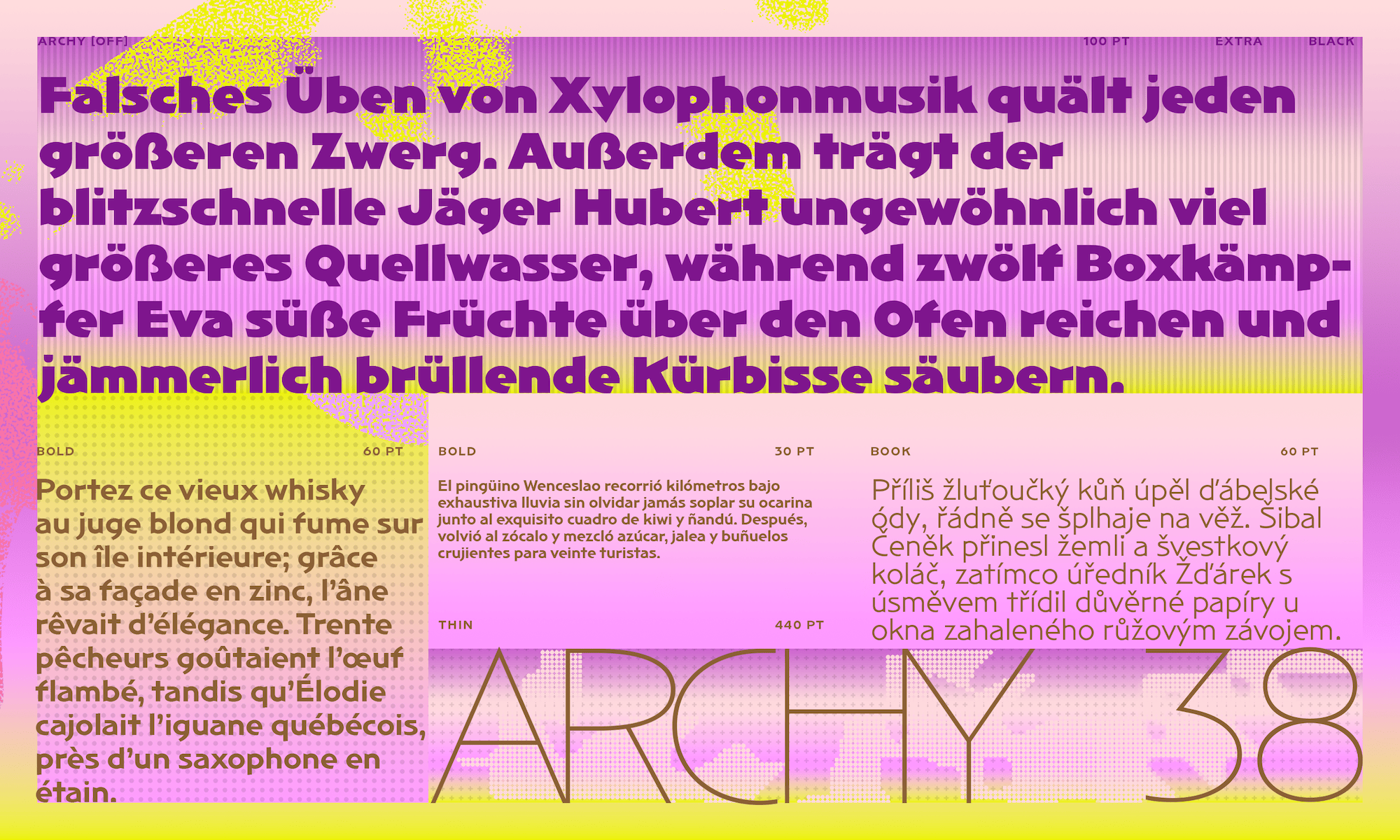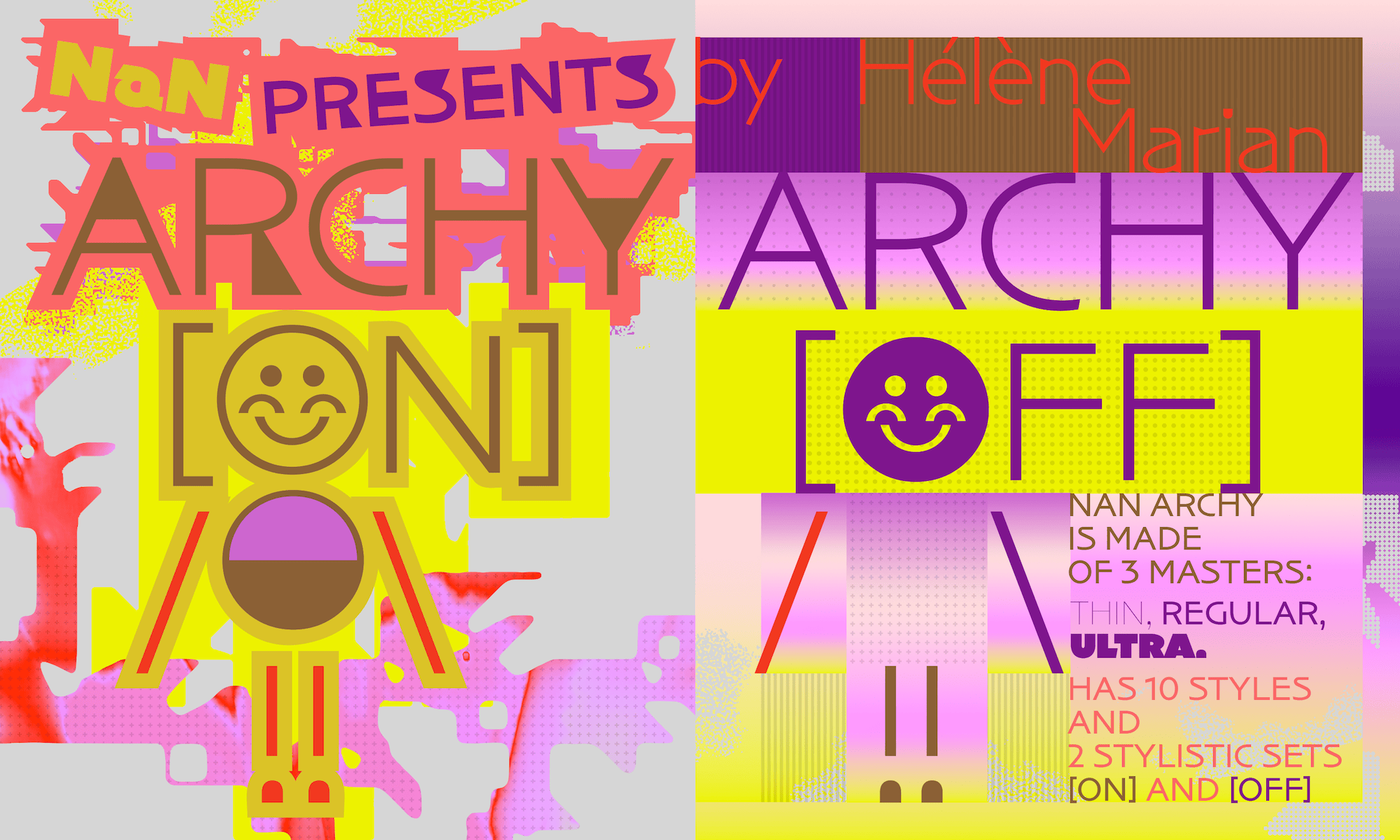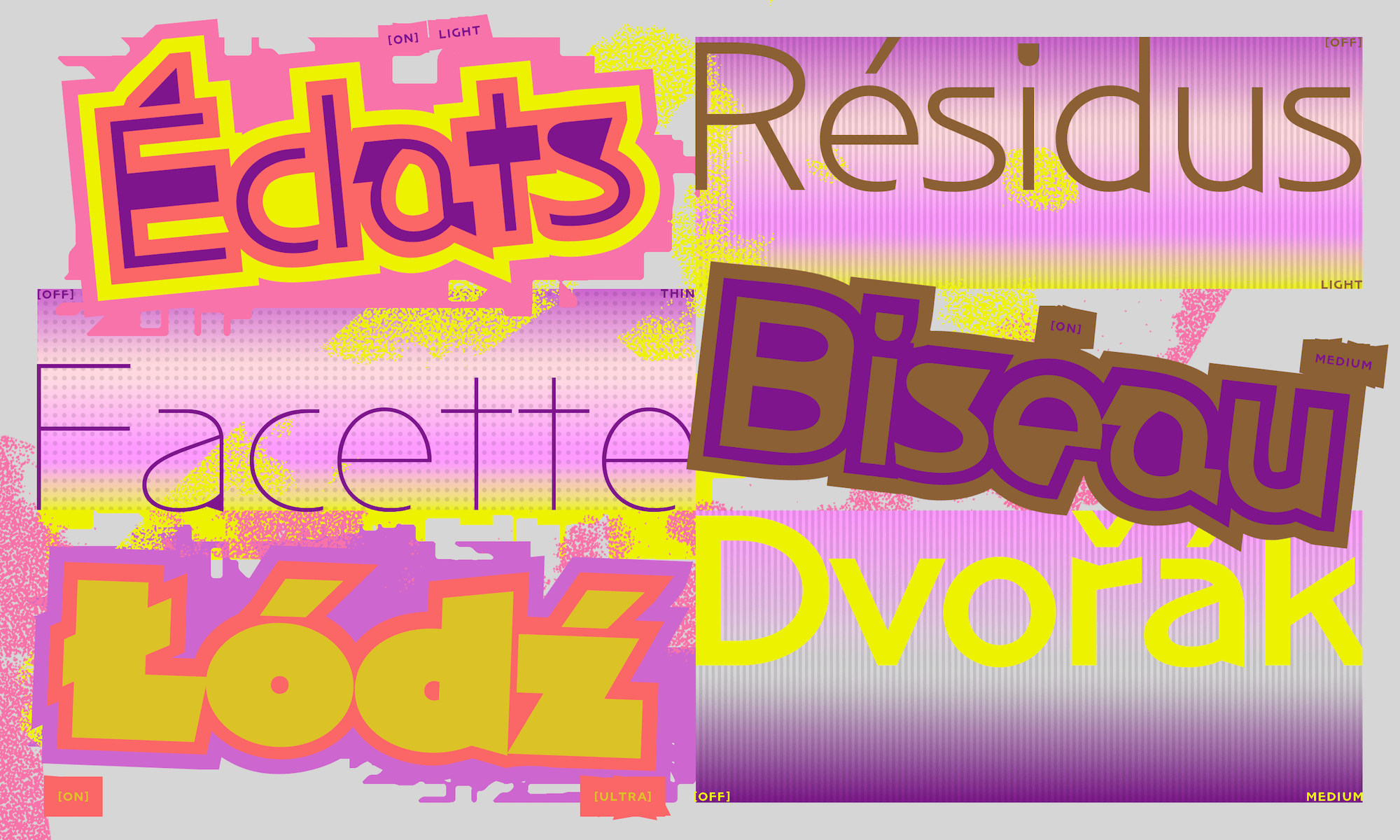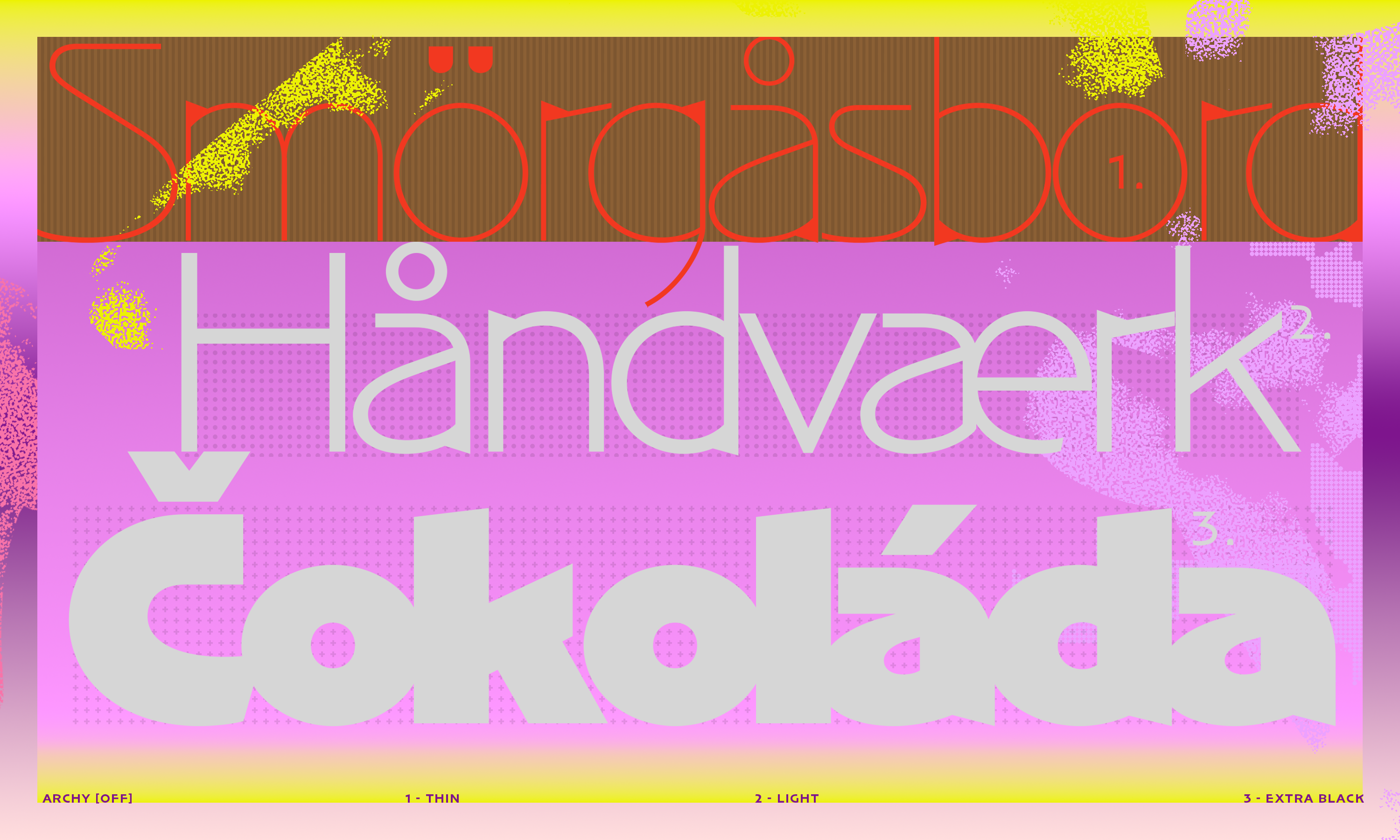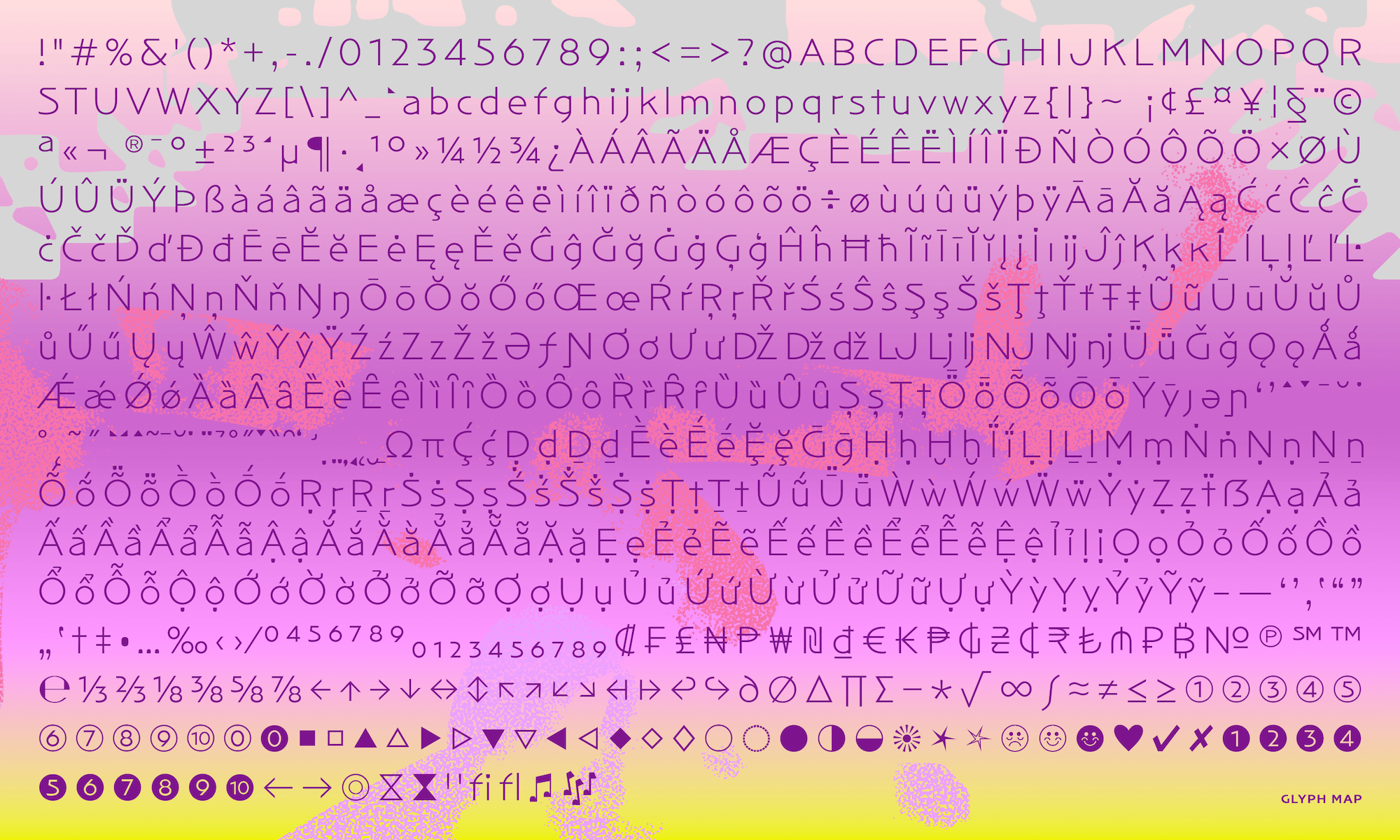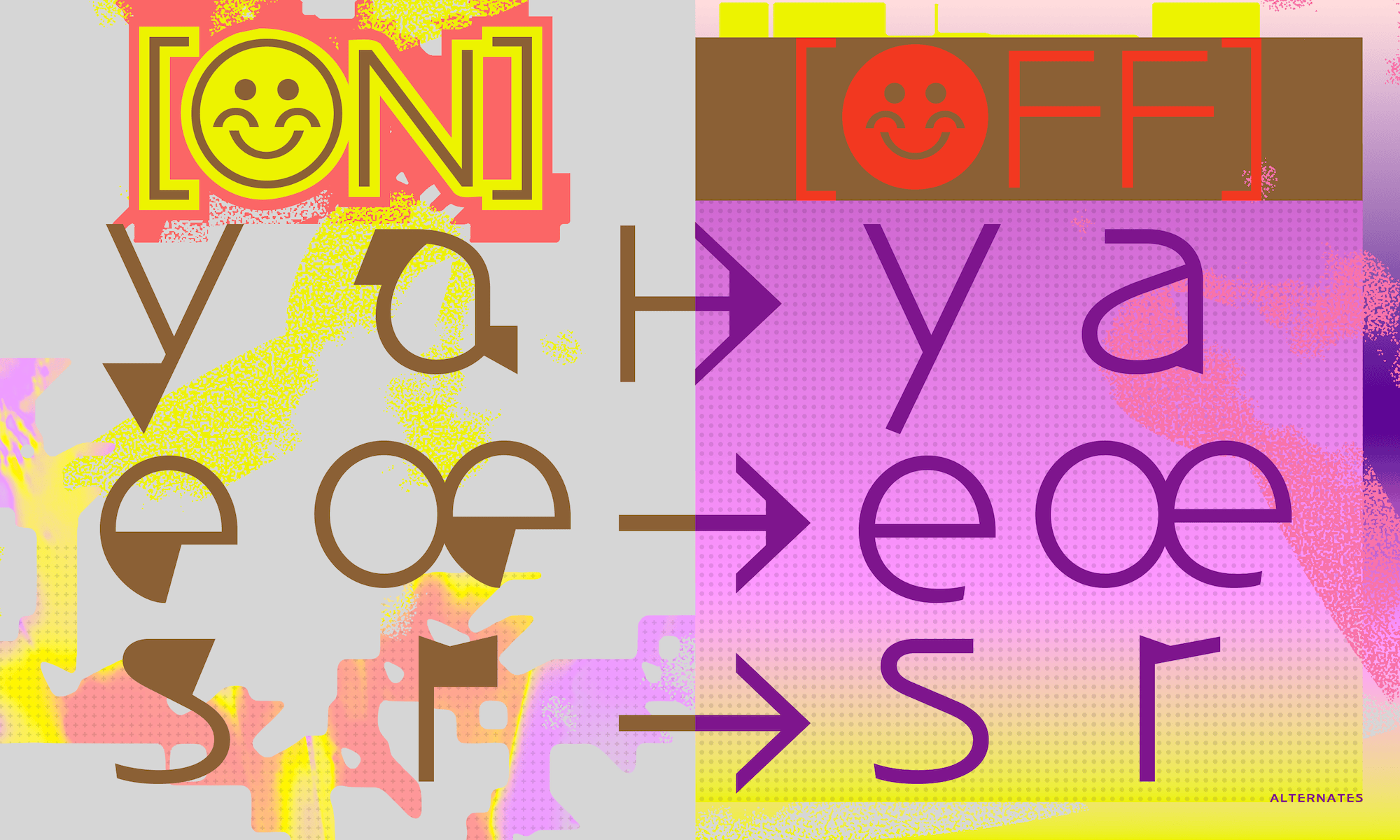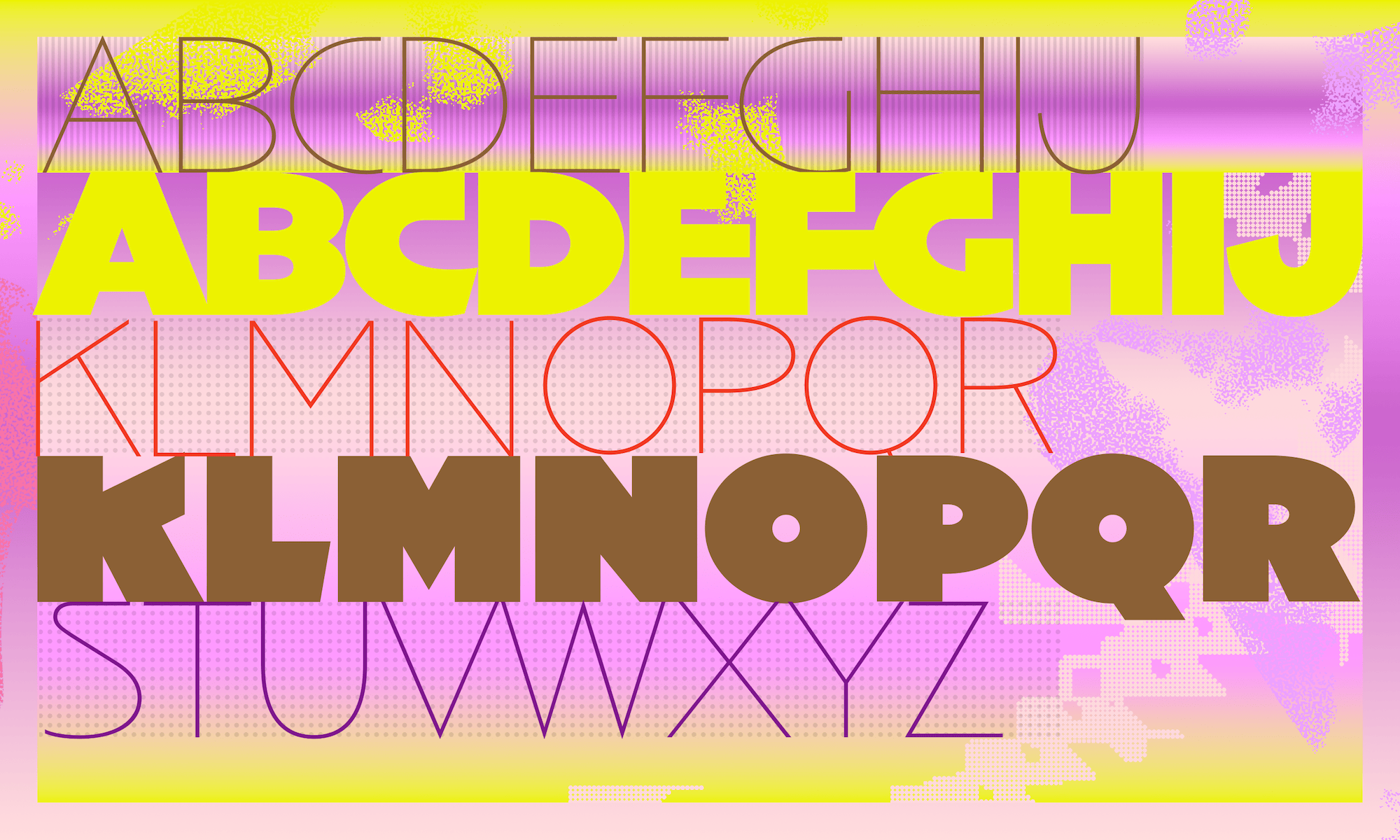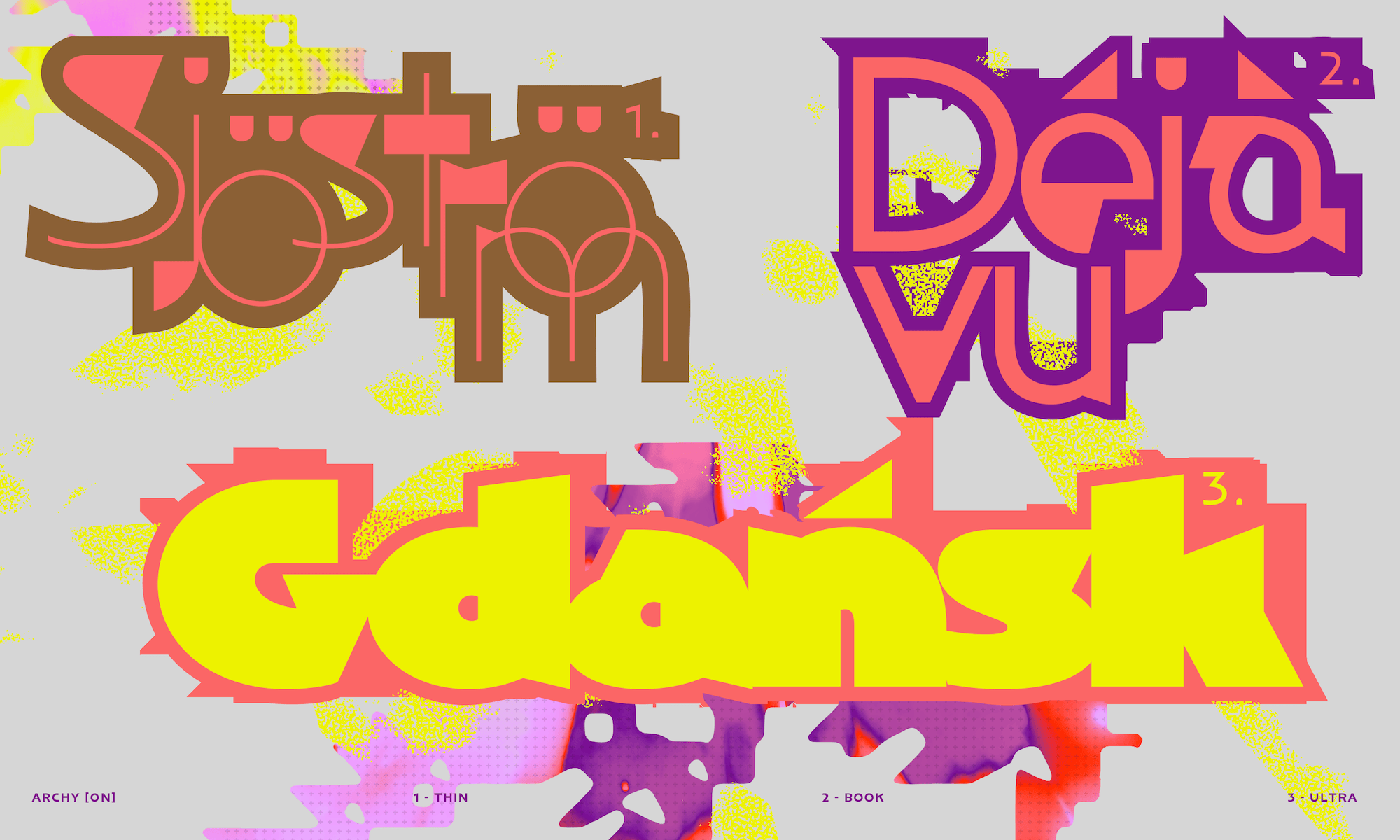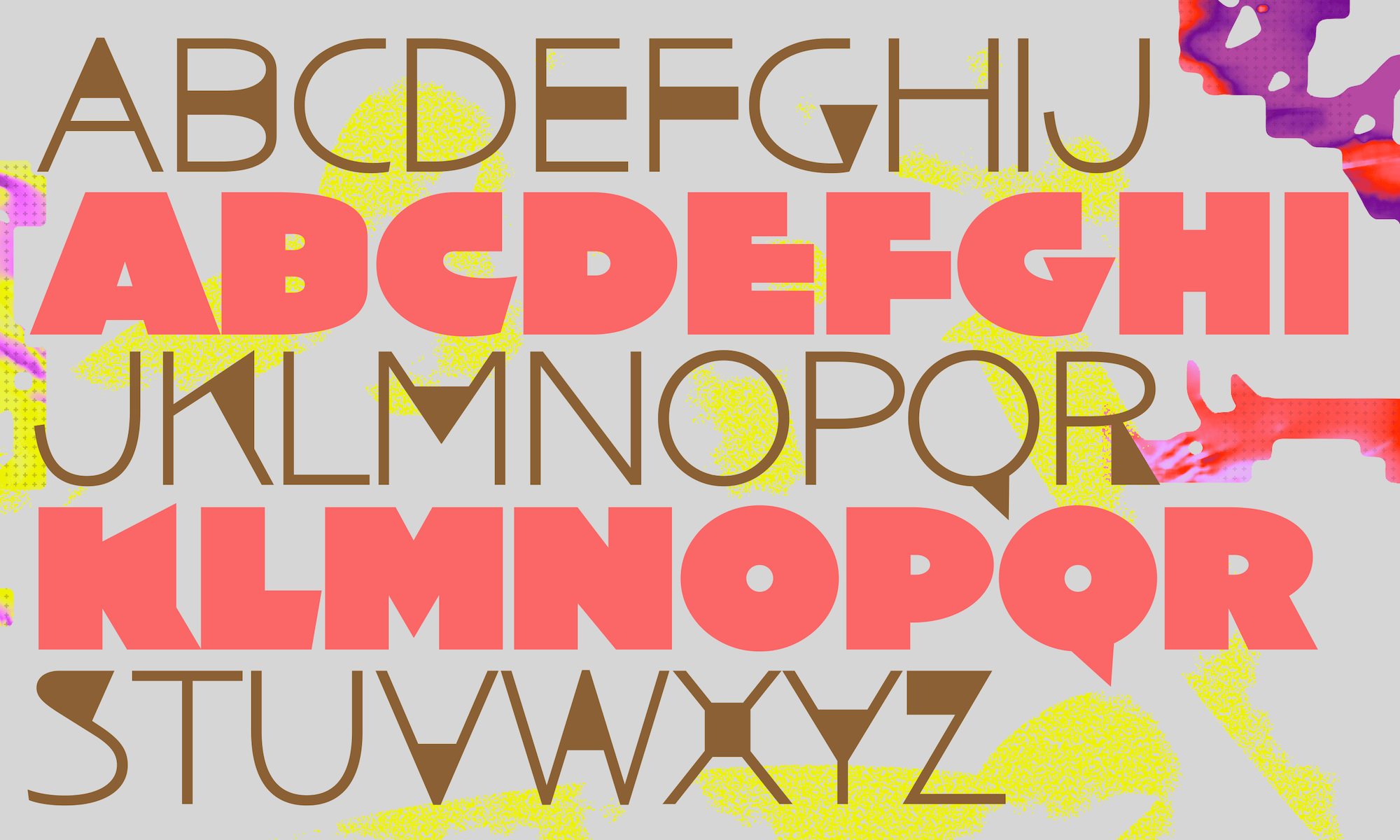
About NaN Archy
NaN Archy is Hélène Marian first release at NaN. Archy takes its roots in Marian’s practice of paint-brush lettering but processes it through a highly digital treatment, suppressing most its organic nature. What’s left is a sans serif in 2 versions, [ON] and [OFF].
[ON] is an exploration of how, in a typeface with a huge weight range (from thin to ultra), glyph structures are altered from on extreme to the other one. Marian embraces the contradiction and delivers a typeface where the glitch is a feature. The structure simplifications made in Ultra are kept in lighter weights, creating unexpected black spots. The lighter you get, the more the weight artifacts become apparent, bringing rhythm to the text like notes on a music score.
[OFF] is a more restrained vision. It abandons the glitches but keeps the charming humanist structure and proportions to make an efficient work-horse typeface. The very subtle influence of the paint-brush lettering gives it a slight hint of Art Deco fragrance.
Typeface: NaN Archy
Designed by Hélène Marian
Year: 2024-2025